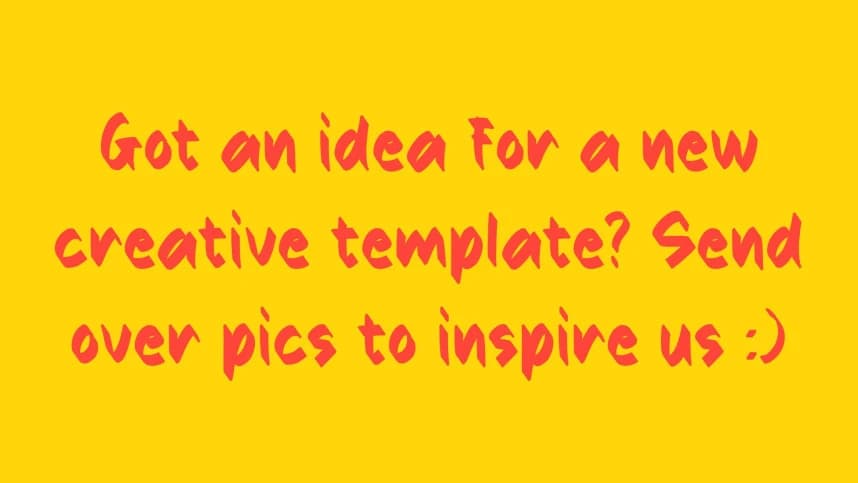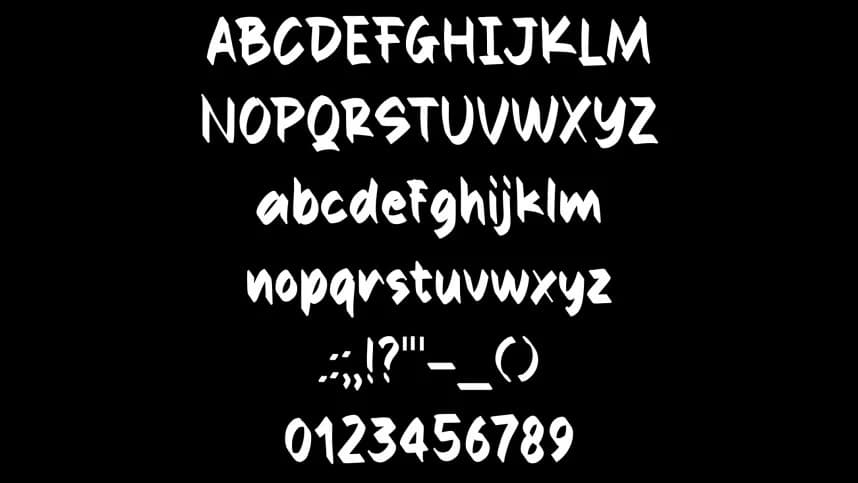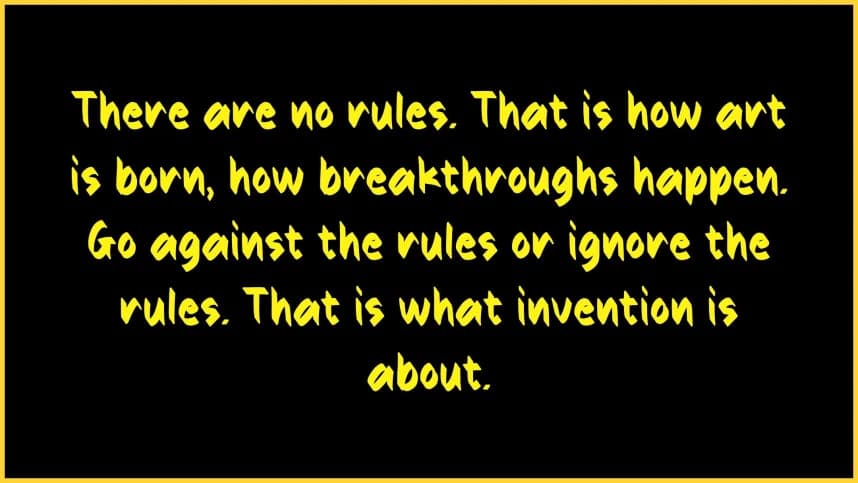
Kitaro Road Font
Kitaro Road Font is a playful handwritten display font with a bold and energetic personality. Designed with smooth curves and casual strokes, this typeface delivers a fun, friendly, and creative feel that works perfectly for comic-style designs